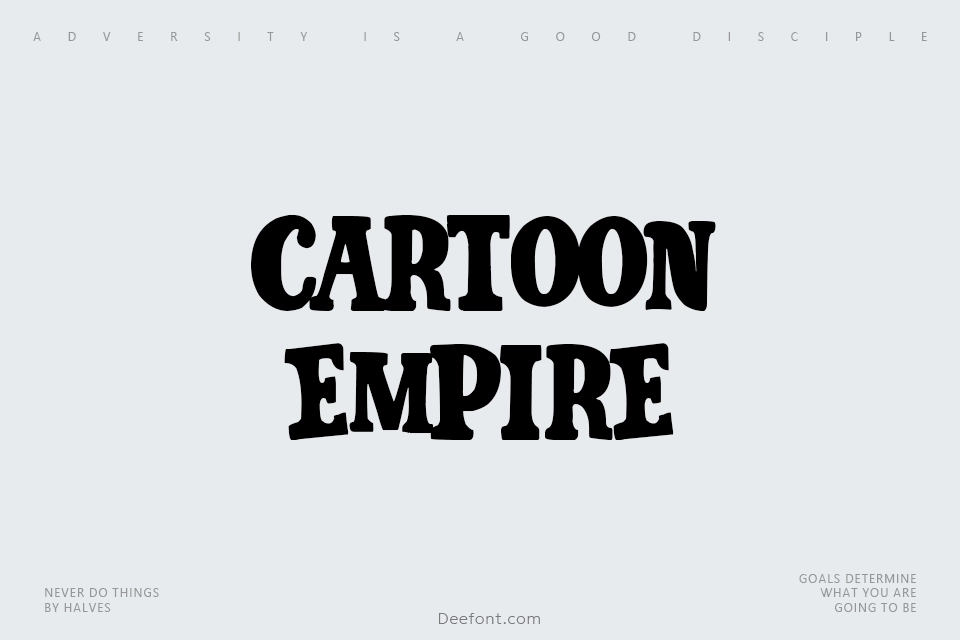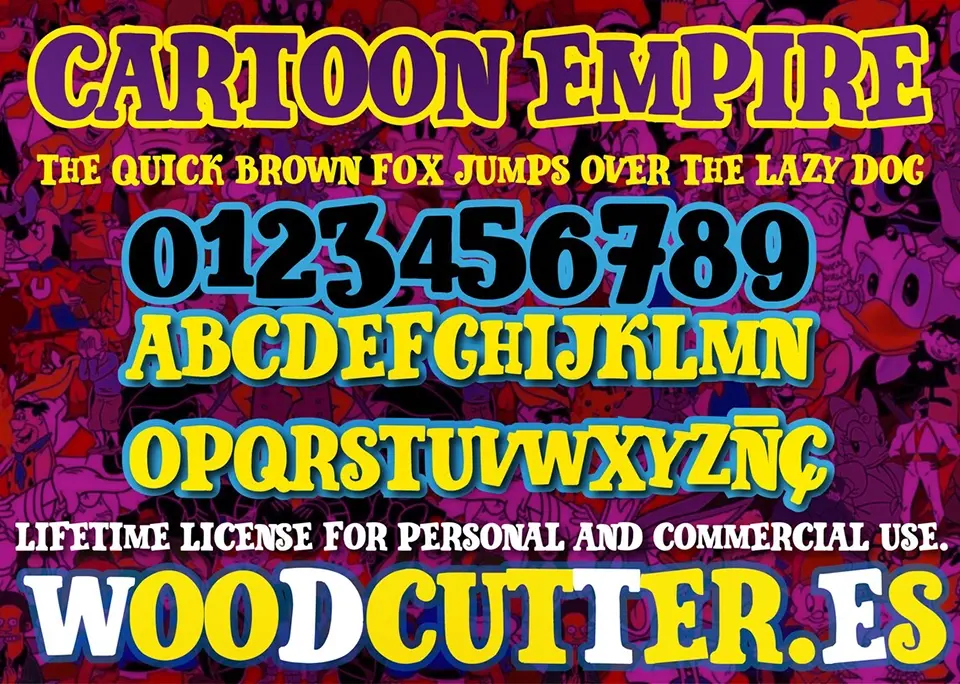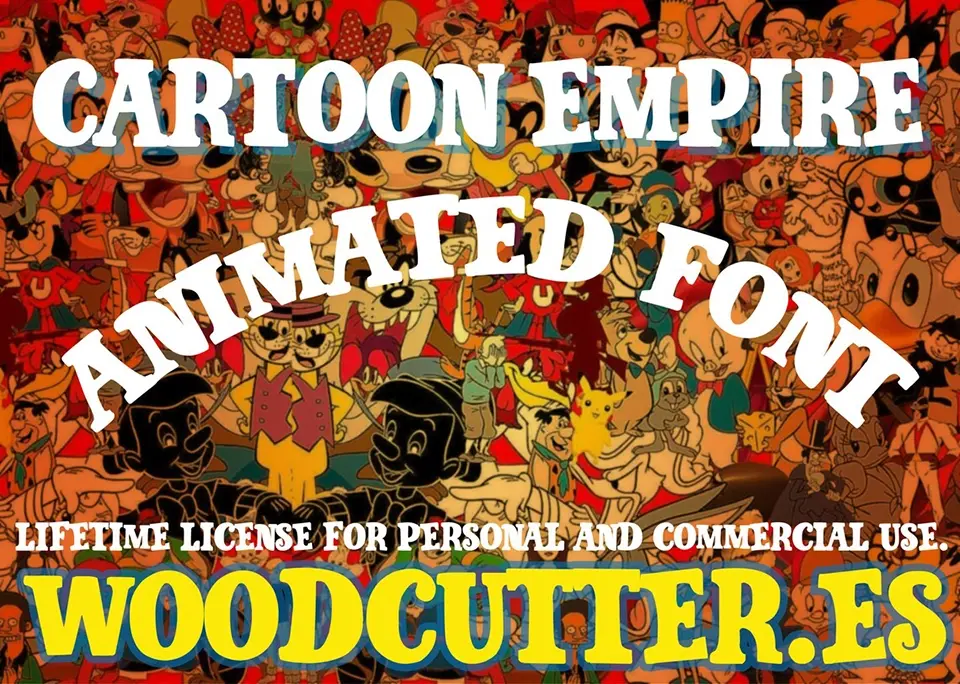
Cartoon Empire Font
Cartoon Empire is a playful and whimsical display font created by Woodcutter Manero. With its bold, rounded letterforms and cheerful character, this fancy typeface brings vibrant energy to creative projects, illustrations, and playful designs. Perfect for adding fun and personality to children’s books, posters, cartoons, and decorative typography, Cartoon Empire transforms ordinary text into eye-catching visual elements that delight and engage viewers.